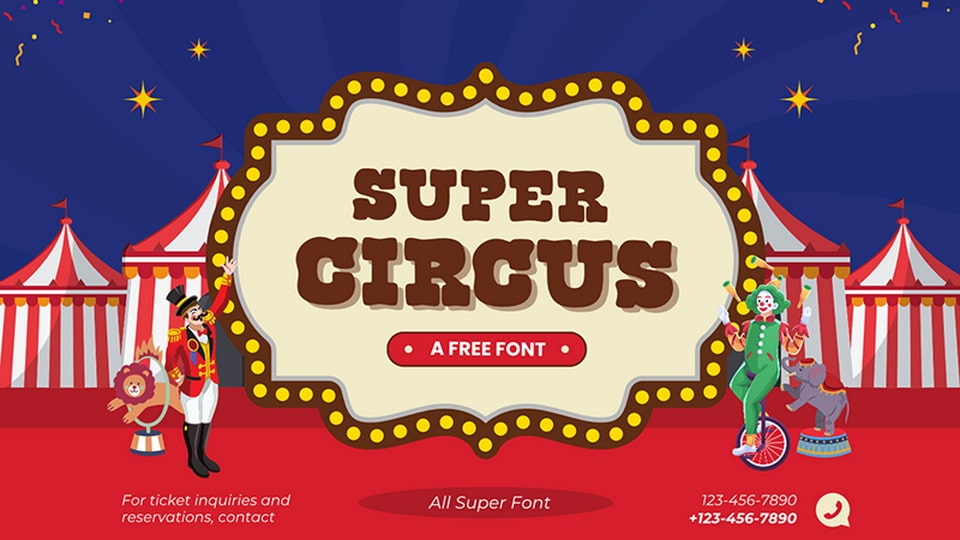
Super Circus is a bold yet playful hand-lettered slab serif font that blends vintage Western aesthetics with a lively, modern twist. Its smooth, rounded strokes and chunky serifs radiate warmth and charm, while subtle hand-drawn details add a touch of whimsy. The result is a typeface that feels both nostalgic and full of energy, perfect for projects that aim to stand out with character and flair.
Ideal for branding, posters, packaging, and editorial work, Super Circus font captures the adventurous spirit of the Old West while embracing a lighthearted, approachable vibe. Its retro charm and playful personality make it an excellent choice for creative designs that want to mix tradition with fun.
Use Super Circus font to add a bold, retro Western feel with a delightful twist to your typography.